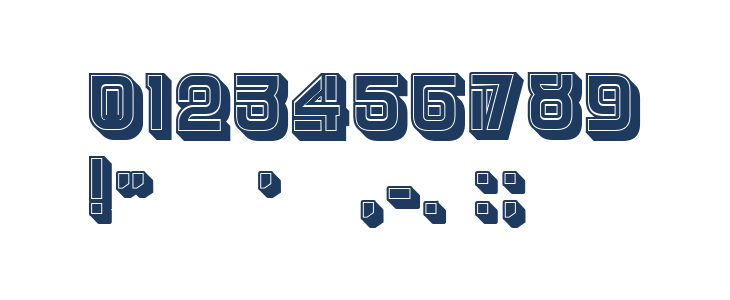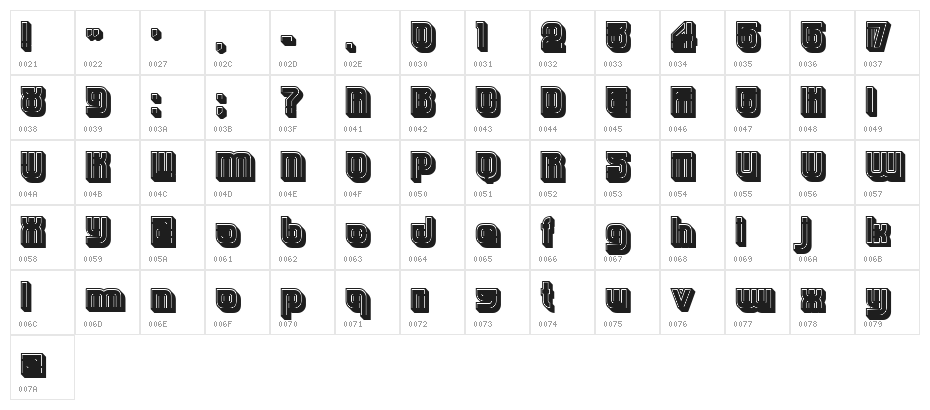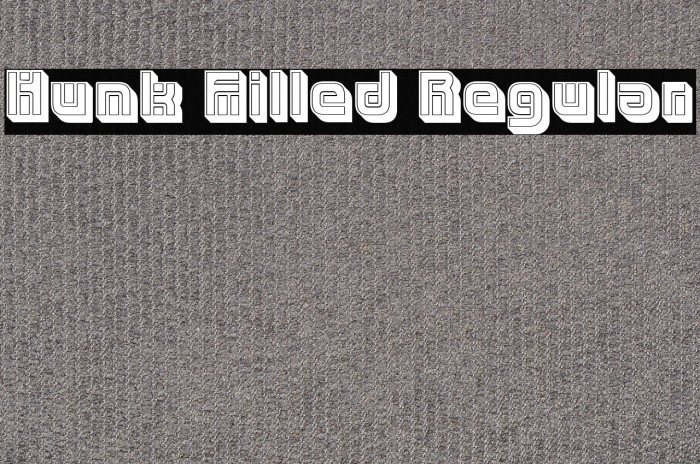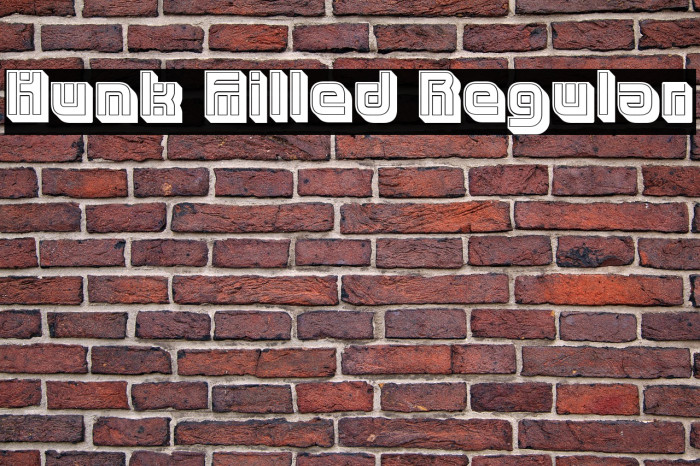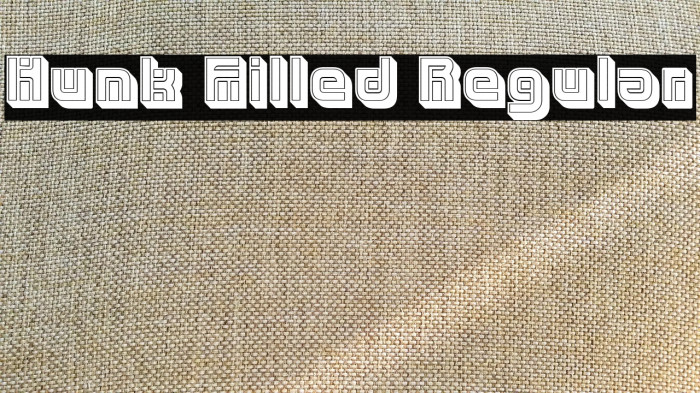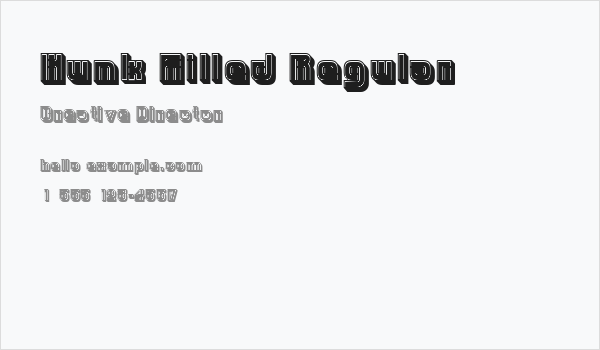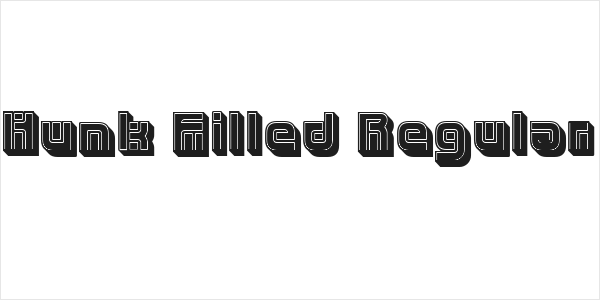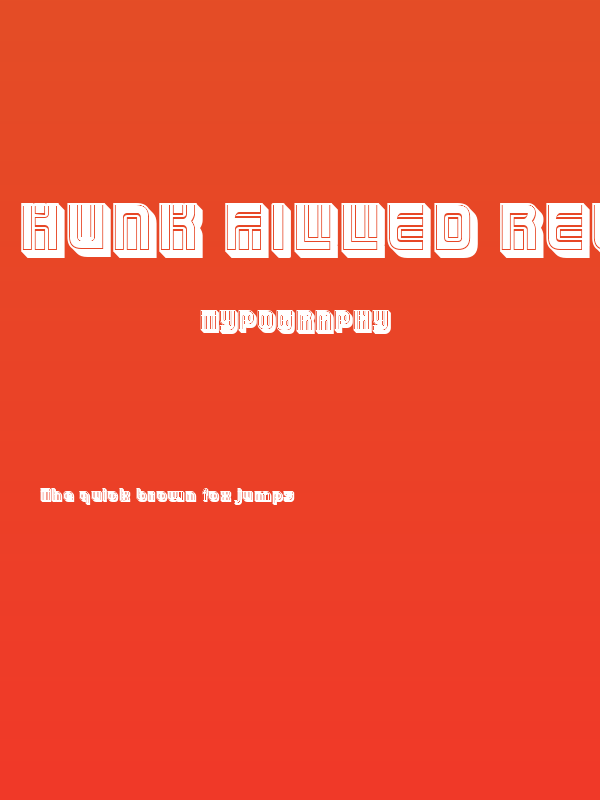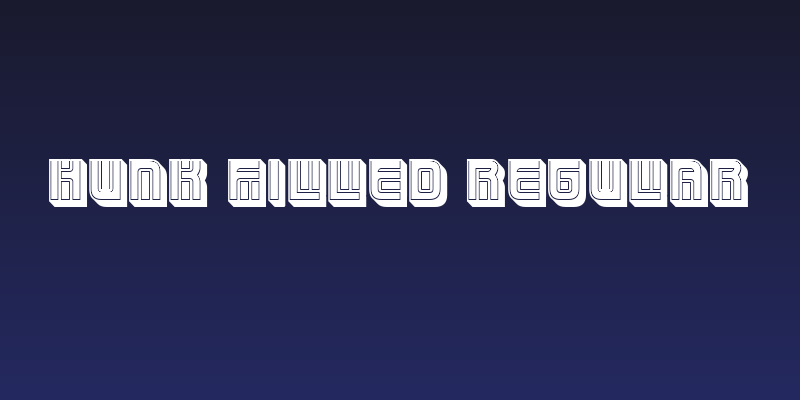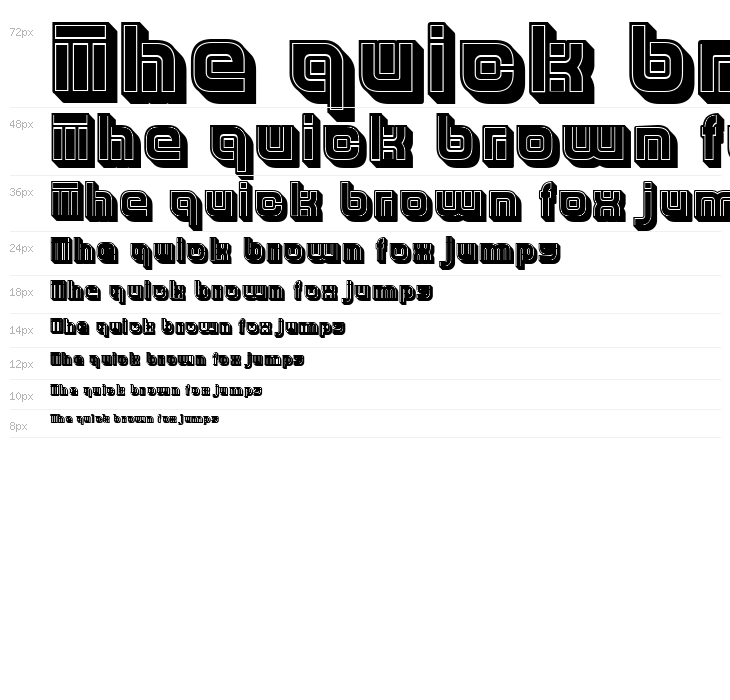
Hunk Filled Regular Font
Hunk Filled Regular Description
This font features a bold, three-dimensional design with a distinct shadow effect that gives it a striking, impactful appearance. The characters are blocky and geometric, with a consistent width and height that create a uniform look. The uppercase and lowercase letters maintain a similar style, enhancing the cohesive feel of the font. The numbers and special characters are designed to match the boldness and style of the alphabet, making it suitable for attention-grabbing headlines or titles. The font's unique style makes it stand out, ideal for projects that require a strong visual presence.
| Proposed Projects | Ideal for posters, logos, video game graphics, and any project needing a bold, eye-catching typeface. |